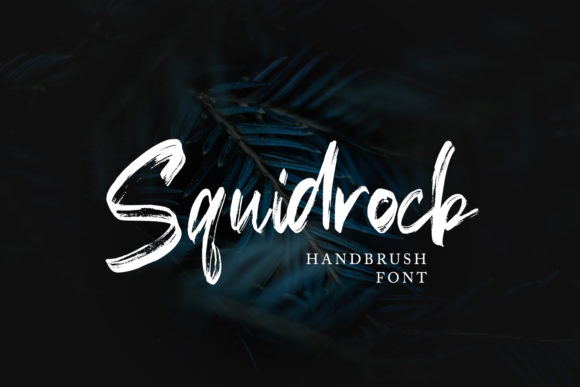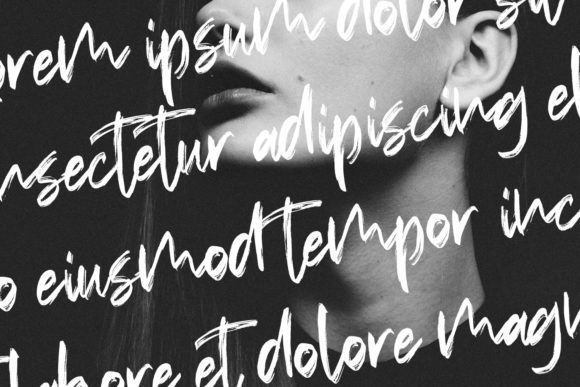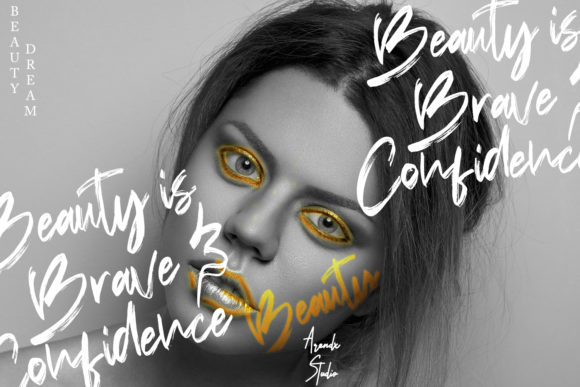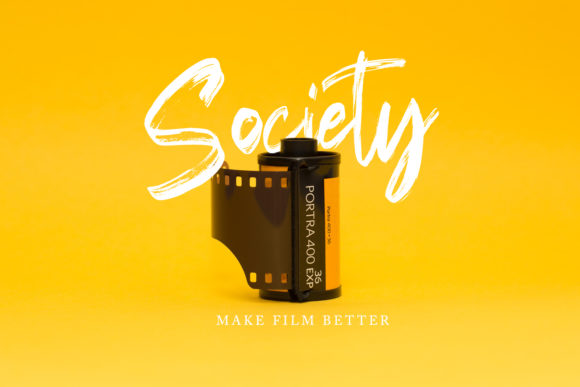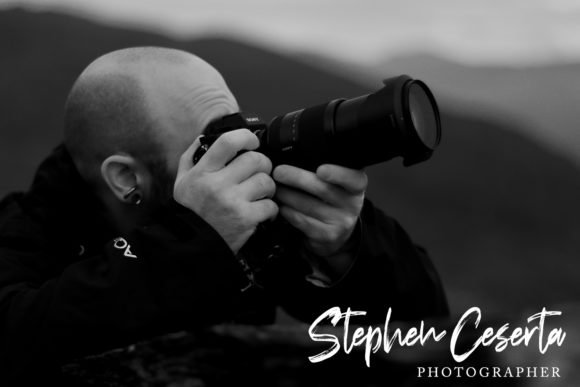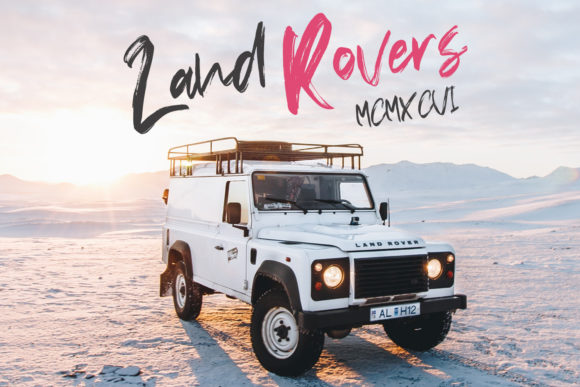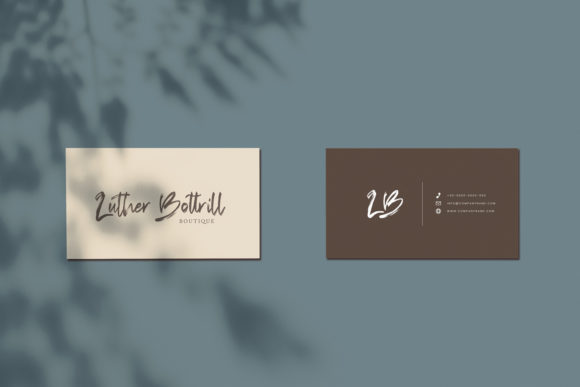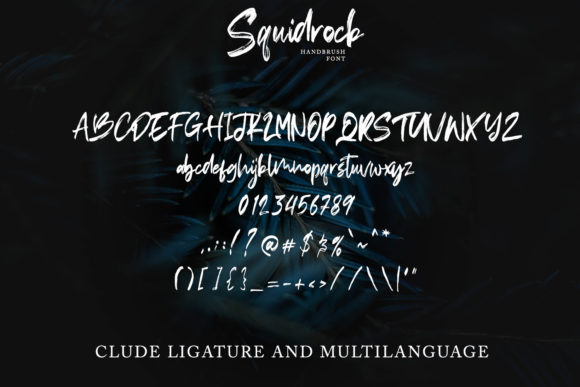
HomeScript FontsSquidrock Font Script Fonts Squidrock Font FacebookXPinterestWhatsApp Squidrock Font Poster 2 Squidrock Font Poster 3 Squidrock Font Poster 4 Squidrock Font Poster 5 Squidrock Font Poster 6 Squidrock Font Poster 7 Squidrock Font Poster 8 About Squidrock Font Squidrock is a strong and bold script font with a fresh look. It will add a modern twist to any design idea! DOWNLOAD ON CREATIVE FABRICAThis font is sold and delivered by Creative Fabrica. Font Canyon may earn a commission if you buy through this link. People also explored Ashadiya Font Prim Rose Font Girls Natural Gildan 5000 TShirt Mockup The Hand Font Dear Emily Font Dapka Font Attena Font Rosaliya Font Dragon Font 335 0 TagsSquidrock Font Previous articleRefresh Screen FontNext articleHakodate Font LEAVE A REPLY Cancel reply Comment: Please enter your comment! Name:* Please enter your name here Email:* You have entered an incorrect email address! Please enter your email address here Website: Save my name, email, and website in this browser for the next time I comment. Personal Use Free Sehat Selalu Personal Use Free Read more about this font Ashay Personal Use Free Read more about this font Heart Memory Personal Use Free Read more about this font Beat My Guest Personal Use Free Read more about this font BLOG Modern Sans-Serif Fonts That Brands Love in 2025 In 2025, modern sans-serif fonts remain a top choice for brands looking to project clarity, professionalism, and... Free vs Paid Fonts: Why Investing in Premium Fonts Is Worth It How to Install and Use Fonts on Windows, macOS, and Web Projects Exploring Font Trends